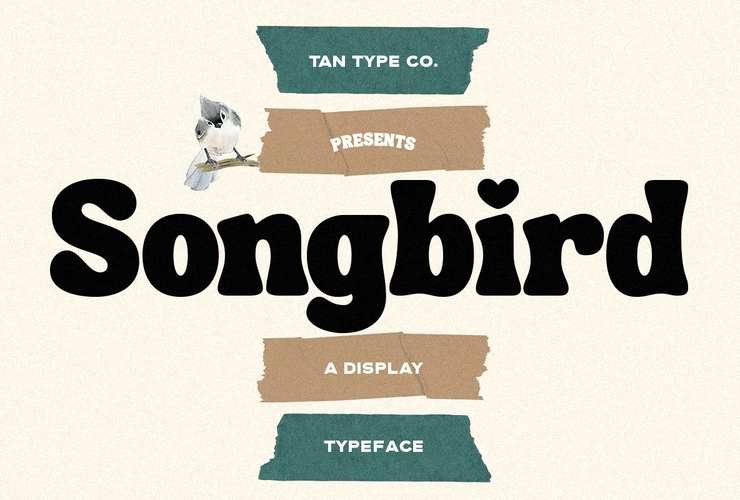
Design and character
The designer describes TAN Songbird as “an ode to the 70s retro”, “bold and tightly spaced with soft slightly bulge serif giving it just a good amount of groove”. The specimen above, rendered from the licensed font files, matches that closely. It is a very heavy serif with soft, rounded serifs and almost no sharp corners anywhere.
The “bulge” is easy to spot. Stems in letters like n, h, b and d swell outward near the top and bottom and pull in at the middle, so each letter looks slightly inflated. Bowls are round and counters small, and the letters sit so close together that a word becomes one rolling shape. The playful details are hearts: the dots on i and j are heart-shaped, and so are the dots under the exclamation mark and question mark. The figures are just as heavy and round, and the capital Q has a curling tail.
That density makes TAN Songbird a display face. It reads well in a few words at large size, and its tight fit and small counters are not suited to paragraphs.
- Styles: one, Regular.
- Glyphs: 353, covering upper and lowercase, figures, punctuation and accented letters.
- Designer: Novia Jonatan, according to the font files, published by TanType Co.
TAN Songbird covers Basic Latin (English), Western European and Central and Eastern European characters, enough for French, German, Spanish, Polish, Czech and similar languages.
It has four OpenType features, more than many single-style display fonts:
- Kerning tidies the spacing between particular letter pairs. It works automatically almost everywhere.
- Standard ligatures replace certain letter pairs with a joined design. They are switched on by default in Adobe apps, Affinity and web browsers.
- Stylistic alternates are extra versions of some letters. Pick them from the Glyphs panel in Illustrator, InDesign or Photoshop, or the Glyph Browser in Affinity apps.
- Fractions turn 1/2 or 3/4 into proper fractions when you enable the feature in an OpenType panel.
The font stores nothing in the Private Use Area (PUA), so Canva and Cricut Design Space users should know the limits. Those apps cannot switch on stylistic alternates or fractions, and there are no PUA codes to paste in as a workaround. You will see the default letters, hearts included. For the alternates, set the words in an OpenType-capable app and import them as an image or SVG.
Best uses and font pairings
TAN Songbird suits anything that wants warmth and a wink of nostalgia: bakery and ice-cream branding, kids’ products, candle and soap labels, retro T-shirts, playlist covers, party invitations and Valentine’s designs, where the hearts earn their keep.
Pair it with fonts that stay calm next to all that weight:
- Nunito, a rounded sans whose soft ends echo Songbird’s rounded serifs.
- Work Sans for clear body copy and product details.
- Courier Prime for a typewriter accent on labels, tickets or recipe cards.
Do the heart dots work in Canva and Cricut?
Yes. In the files we rendered, the heart dots on i and j are the default letters, so they appear whenever you type, including in Canva and Cricut. The stylistic alternates are the part those apps cannot reach.
Who designed TAN Songbird?
Novia Jonatan, per the font files, published by TanType Co.